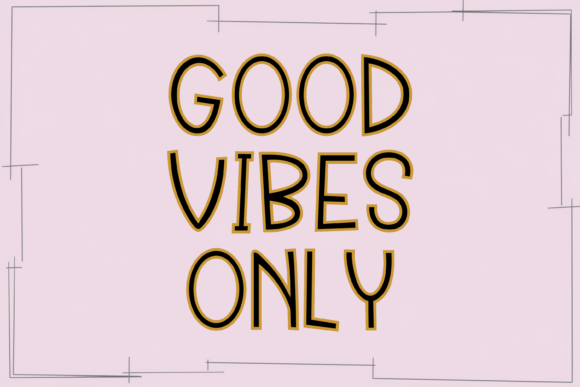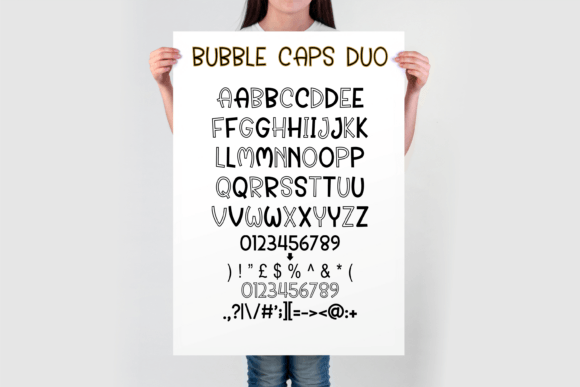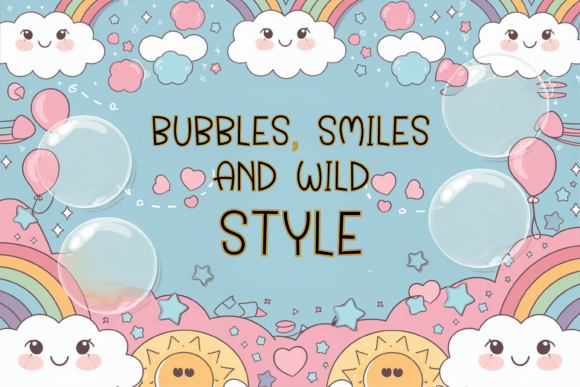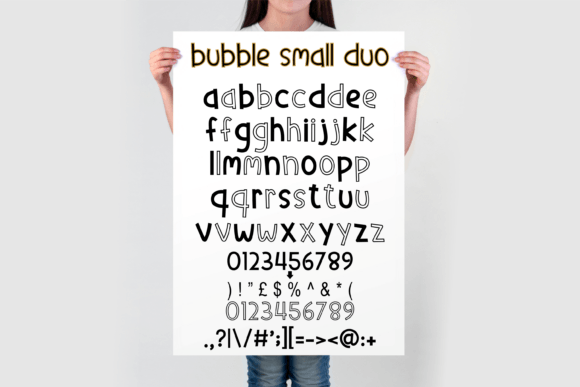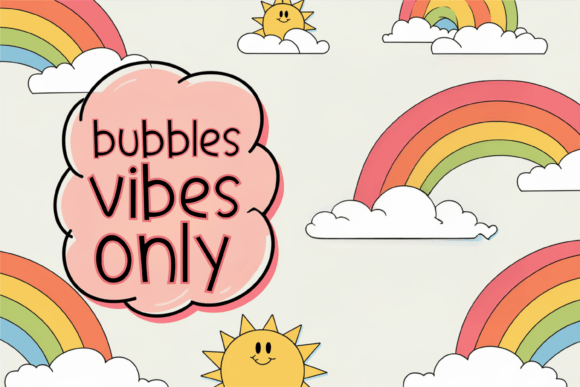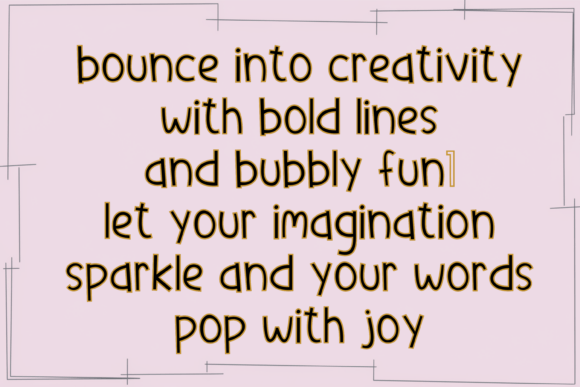
Bubble Duo Font – A Fun & Playful Font Duo for Your Creative Projects!
Have you ever been in the middle of a design project, and suddenly, you just can’t seem to find the right font? I recall a recent experience where I was working on a children’s party invitation, and my usual go-to fonts just weren’t cutting it. The design needed something fun, playful, and bubbly – and that’s when I stumbled upon the Bubble Duo Font!
This cheerful, bubbly, and fun typeface has been a game-changer for my designs, and I’m excited to share my experience with you. The Bubble Duo Font is designed to bring a lively and whimsical touch to your designs, making it perfect for a wide range of creative projects.
What Makes Bubble Duo Font So Special?
The Bubble Duo Font comes in two styles – one featuring bold capital letters and the other with charming lowercase letters. This allows you to mix and match for endless creative possibilities. The font is perfect for Cricut, Silhouette, Procreate, Canva, and digital crafting projects, adding a playful charm to stickers, t-shirts, greeting cards, scrapbooking, classroom decor, and more!
- ✨ The font is incredibly versatile, making it suitable for a wide range of projects.
- ✅ The bold capital letters are perfect for headings and titles.
- ✅ The charming lowercase letters add a touch of whimsy to any design.
- ✅ The font is easy to read, even at smaller sizes.
⚠️ One thing to note is that the font may not be suitable for more formal or professional projects, as it has a distinctly playful and casual vibe. 🤔 Additionally, some users may find that the font is a bit too ‘bubbly’ for their taste, but I believe this is part of its charm!
The Designer Inspiration Behind Bubble Duo Font
The Bubble Duo Font was created with the intention of bringing a little joy and whimsy to the world of design. The designer, inspired by the playful and carefree nature of childhood, set out to create a font that would capture the essence of fun and playfulness. With its bold capital letters and charming lowercase letters, the Bubble Duo Font is sure to bring a smile to anyone’s face.